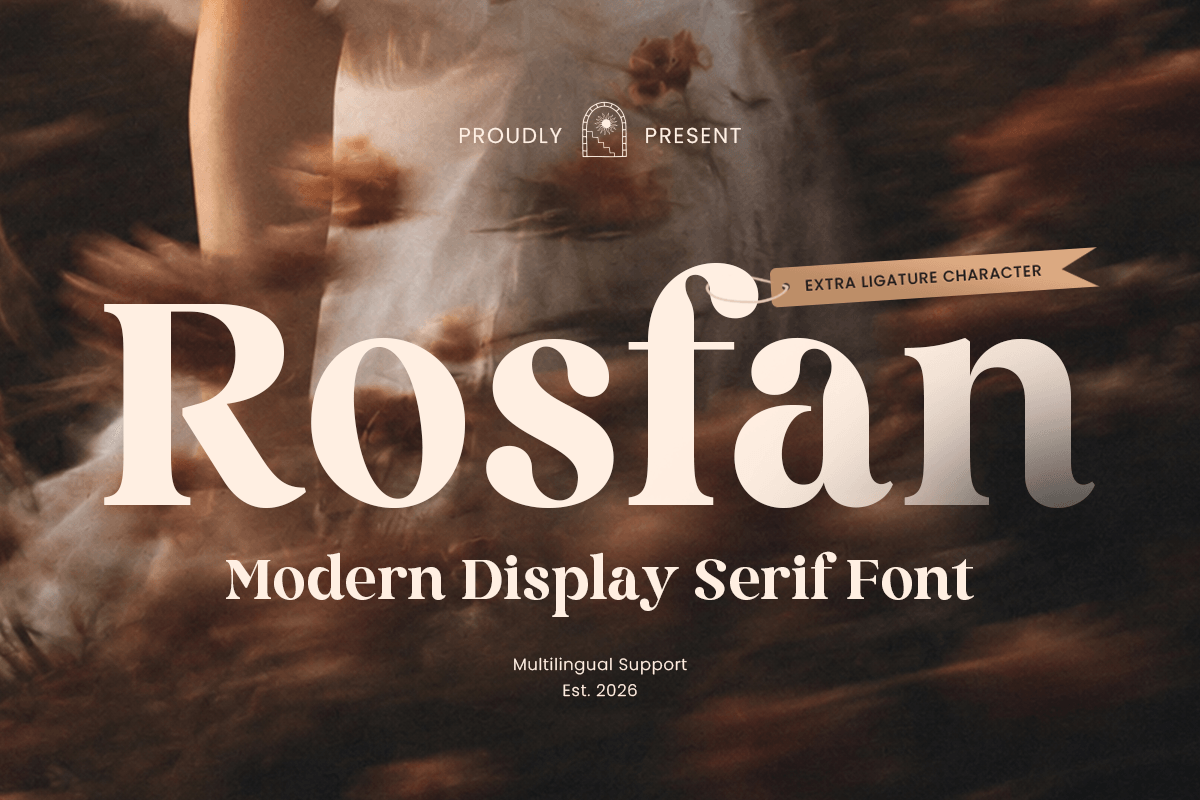
Rosfan
-Modern Display Serif FontRosfan - Modern Display Serif Font
Rosfan is a modern display serif font designed to bring elegance, confidence, and refined character to your creative projects. With stylish serif details, balanced contrast, and strong display proportions, this typeface is perfect for branding, editorial layouts, luxury packaging, magazine titles, and modern logo design.
Created for designers who want typography with both sophistication and visual impact, Rosfan blends contemporary aesthetics with timeless serif charm. Its distinctive letterforms make it ideal for fashion brands, beauty products, lifestyle labels, boutique identities, premium invitations, and high-end marketing visuals.
Whether used as a headline, logo mark, editorial title, or packaging centerpiece, Rosfan delivers polished readability and memorable style across both print and digital media.
Rosfan – Modern Display Serif Font Features
Modern display serif design with elegant visual character
Perfect for branding, logos, editorials, and luxury packaging
Stylish contrast and refined proportions for premium typography
Ideal for fashion, beauty, lifestyle, boutique, and creative industries
OpenType features for enhanced typographic styling